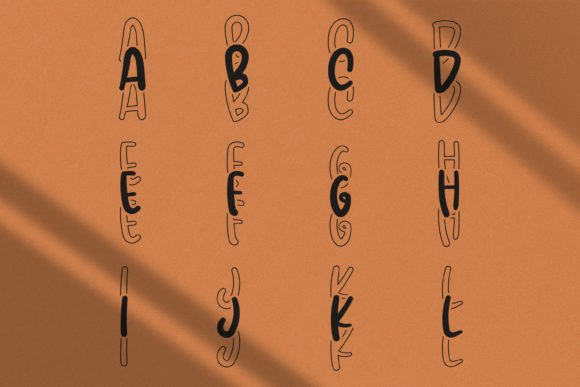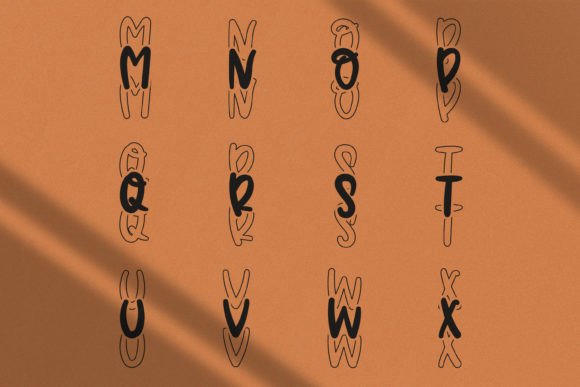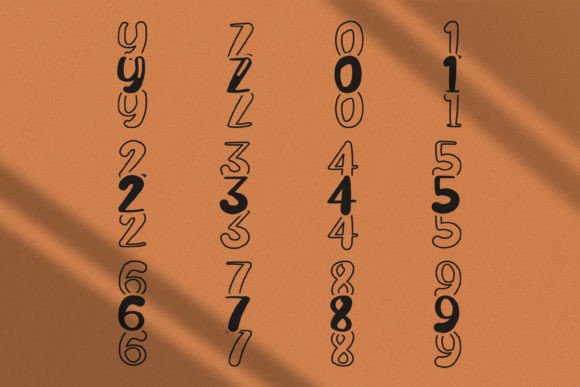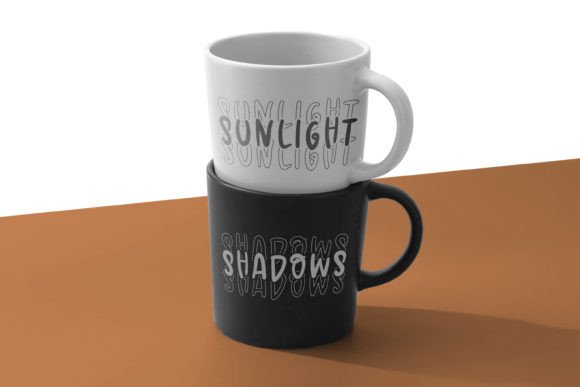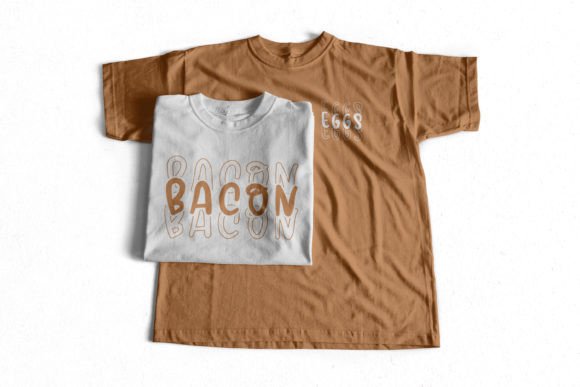
Crafty Layer Font: Elevate Your Designs with a Touch of Whimsy
Crafty Layer is an incredibly cool font. Whether you use it for custom designs, DIY crafts, or just any creation that requires a lovely touch, this font will be an amazing choice. In this article, we’ll dive into the world of Crafty Layer Font, exploring its features, uses, and benefits for designers and crafters alike.
What is Crafty Layer Font?
Crafty Layer Font is a unique and creative typeface designed to add a personal touch to your projects. Its distinctive style, characterized by bold lines and a playful aesthetic, makes it perfect for a wide range of applications, from handmade crafts to digital designs.
Key Features of Crafty Layer Font
- Unique Style: Crafty Layer Font boasts a one-of-a-kind design that sets it apart from more traditional fonts. Its bold lines and whimsical feel make it perfect for adding a touch of personality to your work.
- Versatility: This font is incredibly versatile, suitable for use in various projects, including handmade crafts, digital designs, and even commercial products.
- Easy to Read: Despite its unique style, Crafty Layer Font remains easy to read, making it perfect for use in titles, headings, and short paragraphs.
- Customizable: With Crafty Layer Font, you can experiment with different colors, textures, and styles to create a truly unique look that reflects your brand or personal style.
Uses of Crafty Layer Font
Crafty Layer Font is an incredibly versatile font that can be used in a wide range of projects, including:
- DIY Crafts: Add a personal touch to your handmade crafts, such as journals, planners, and gift tags, with Crafty Layer Font.
- Custom Designs: Use Crafty Layer Font to create stunning custom designs for social media, blogs, and websites.
- Commercial Products: Incorporate Crafty Layer Font into your commercial products, such as packaging, branding, and advertising materials.
- Party Decorations: Create eye-catching party decorations, such as banners, garlands, and invitations, with Crafty Layer Font.
Benefits of Using Crafty Layer Font
So, why choose Crafty Layer Font for your projects? Here are just a few benefits:
- Adds a Personal Touch: Crafty Layer Font helps you add a personal touch to your projects, making them stand out from the crowd.
- Increases Creativity: With its unique style and versatility, Crafty Layer Font can inspire creativity and help you think outside the box.
- Enhances Brand Identity: Use Crafty Layer Font to create a consistent brand identity across all your marketing materials and products.
- Easy to Use: Crafty Layer Font is incredibly easy to use, even for those with limited design experience.
Tips and Tricks for Using Crafty Layer Font
To get the most out of Crafty Layer Font, here are a few tips and tricks to keep in mind:
- Experiment with Colors: Try pairing Crafty Layer Font with different colors and textures to create a unique look.
- Mix and Match: Combine Crafty Layer Font with other fonts to create a visually appealing contrast.
- Pay Attention to Size: Make sure to adjust the font size according to the project requirements to ensure optimal readability.
- Have Fun: Most importantly, have fun experimenting with Crafty Layer Font and exploring its creative possibilities!
In conclusion, Crafty Layer Font is an amazing choice for designers and crafters looking to add a touch of whimsy to their projects. With its unique style, versatility, and ease of use, this font is perfect for a wide range of applications. Whether you’re creating custom designs, DIY crafts, or commercial products, Crafty Layer Font is sure to elevate your work and inspire creativity.